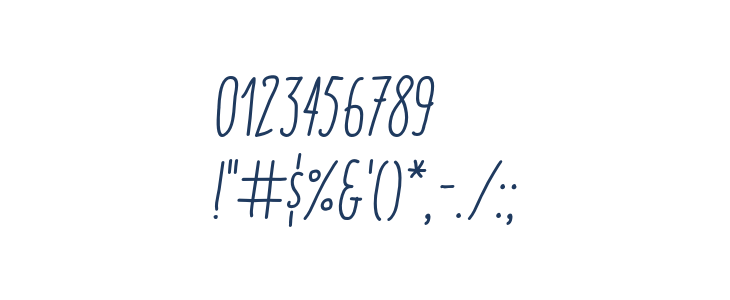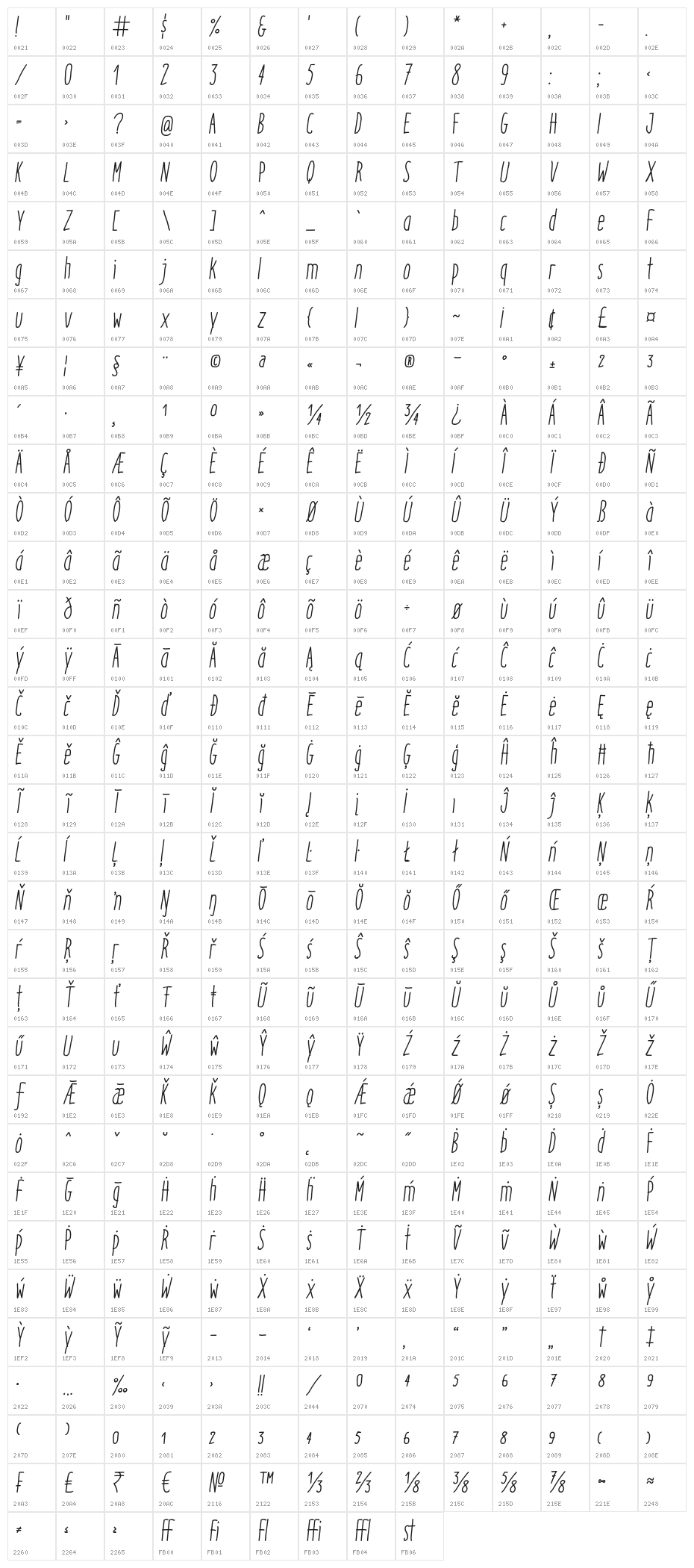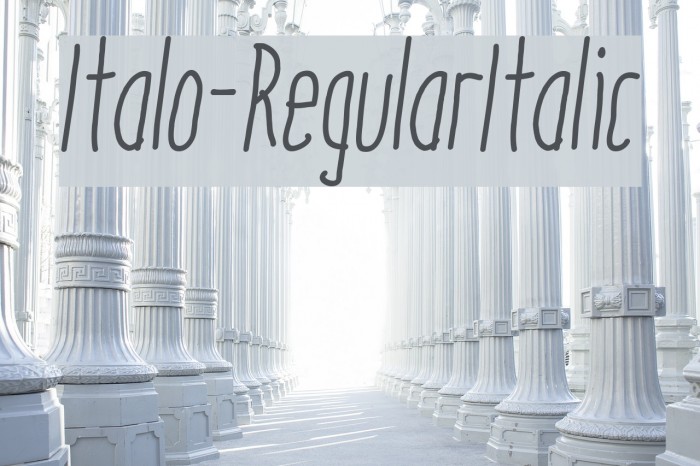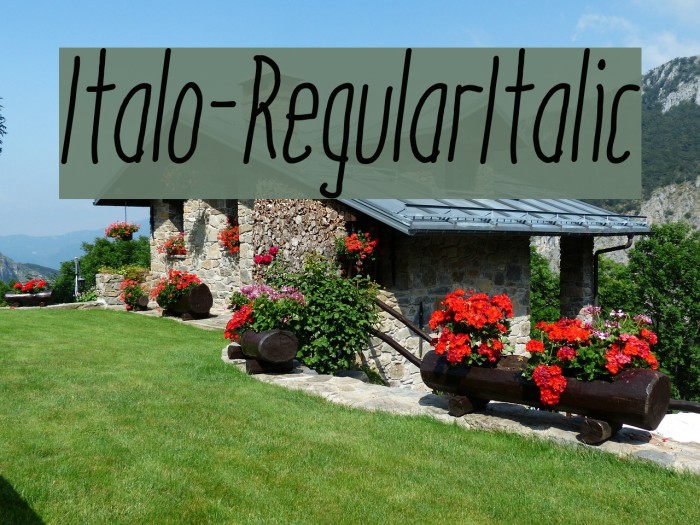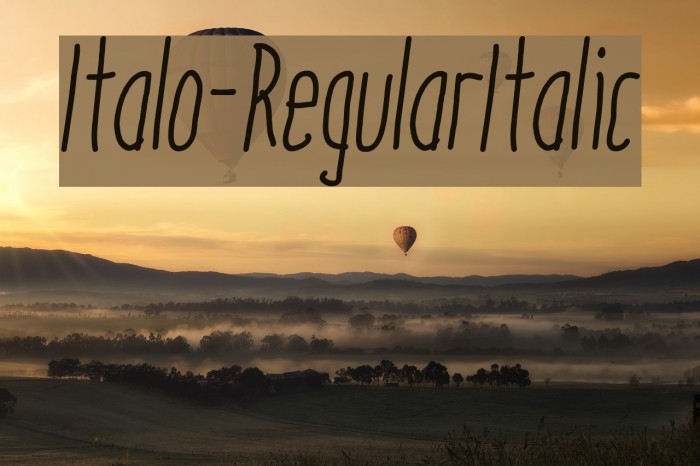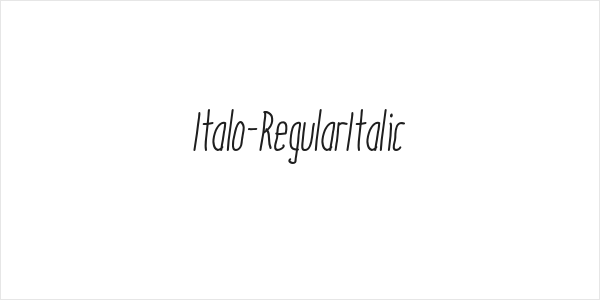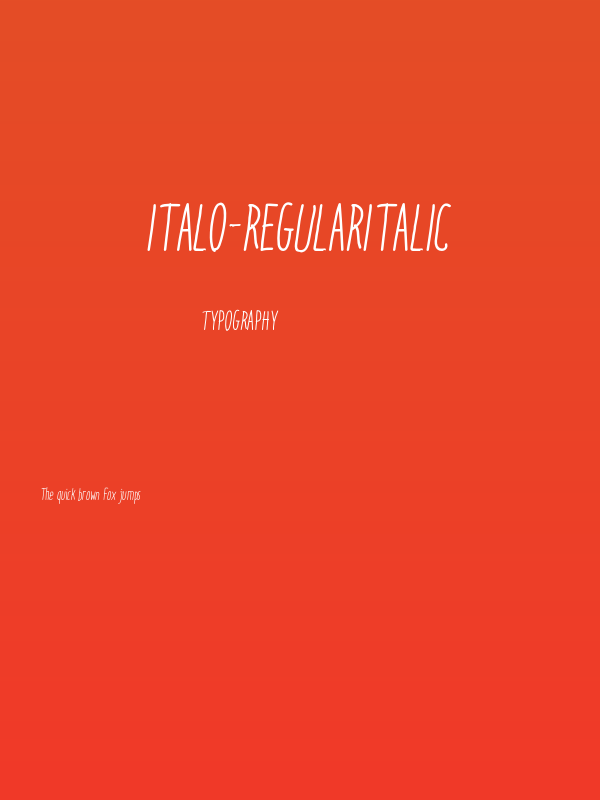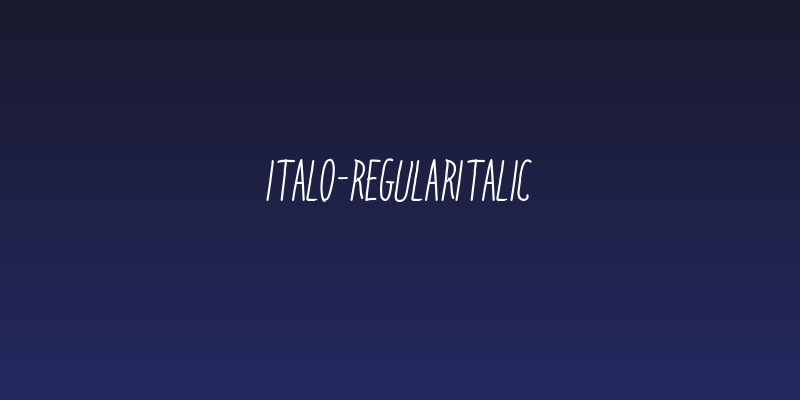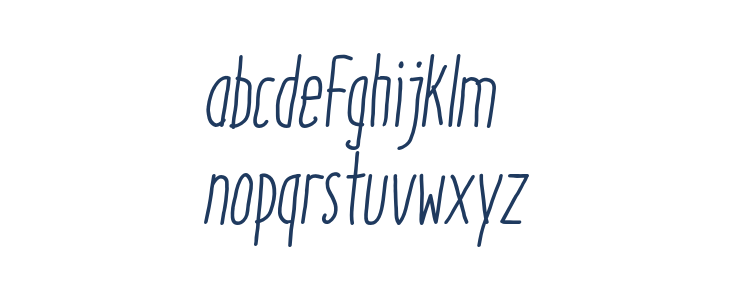
Italo-RegularItalic Font
Italo-RegularItalic Description
This font features a playful and casual handwritten style with a slight slant, giving it an informal and approachable appearance. The characters are elongated with a consistent stroke width, creating a harmonious flow across the text. The uppercase and lowercase letters maintain a cohesive look, while the numerals and special characters integrate seamlessly into the overall design. The font's unique personality makes it stand out, yet it remains legible and clear, suitable for various creative applications.
| Proposed Projects | Ideal for greeting cards, invitations, personal branding, and creative projects that require a friendly and informal touch. |